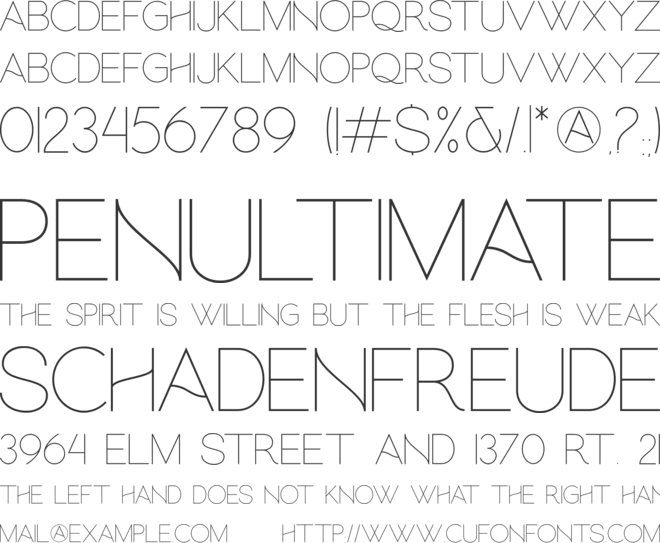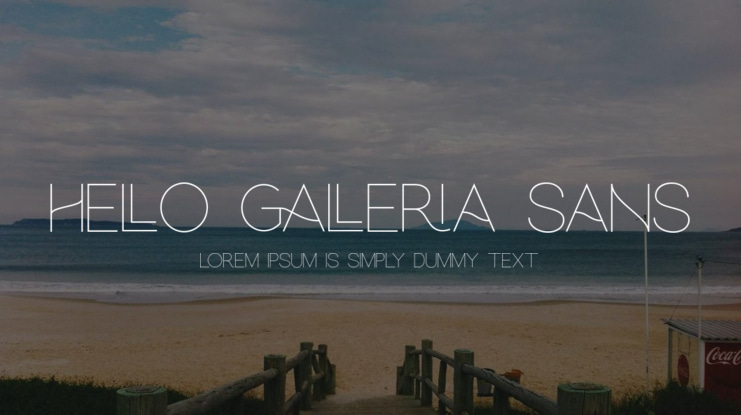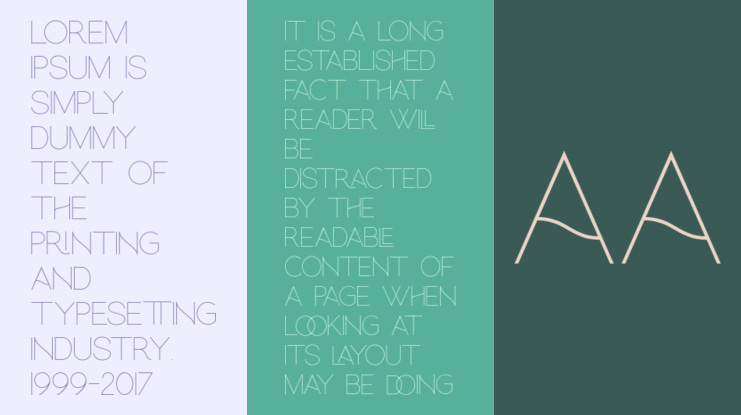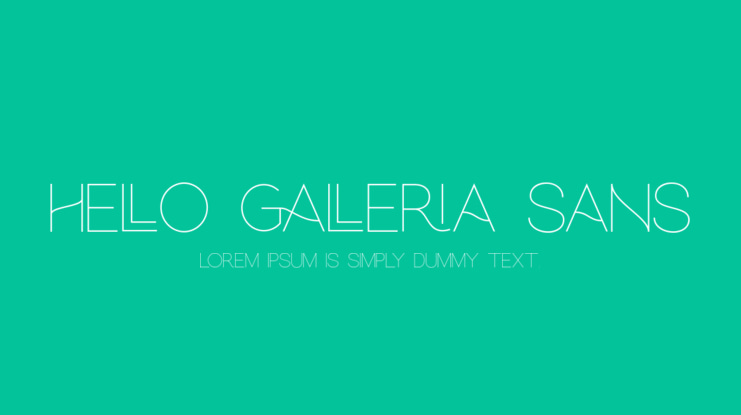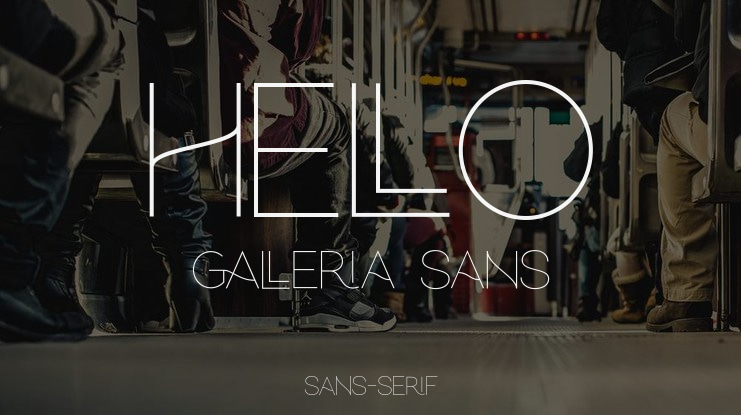
hello galleria sans Font
Hello Galleria is a combination of sans serif and script fonts that are commonly used for wedding events, particularly on invitation cards or when broadcasting event information through social media.